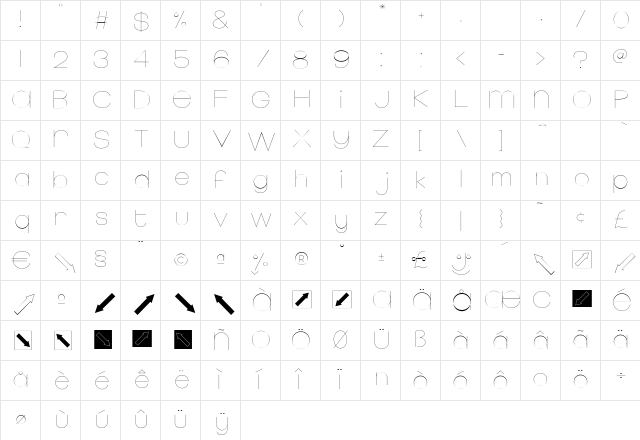
Monofred-UltraLight Regular Font Preview
Design Context for Monofred-UltraLight Typeface
Monofred-UltraLight uses fixed-width spacing throughout, giving it the structured, systematic character associated with coding environments and technical documentation. The delicate stroke weight brings airiness and refinement to layouts.
Pro Tip: Use Monofred-UltraLight with slightly increased line-height for extended reading — fixed-width spacing can feel dense in longer passages without extra breathing room.